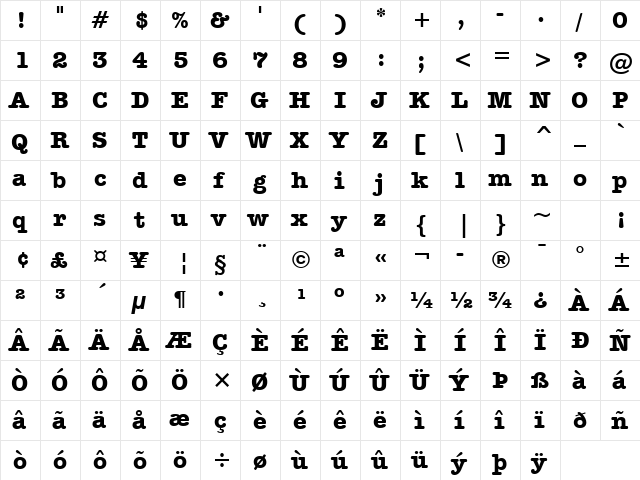
AmerType Md BT Bold
Design Context for AmerType Md BT Typeface
AmerType Md BT takes a measured approach to typography — its balanced proportions and neutral character make it a reliable workhorse for both digital and print work. The heavy weight commands attention and anchors typographic hierarchies.
Pro Tip: Pair AmerType Md BT with a font of contrasting weight or personality to build a more expressive typographic hierarchy.